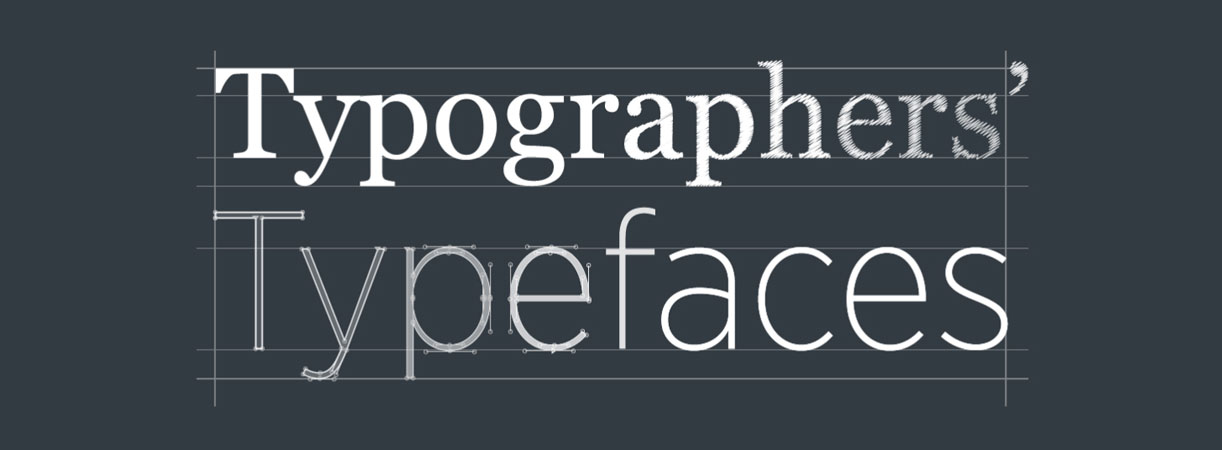
The 25 most admired typefaces of all time by those in the know
Selecting the right typeface makes all the difference to effective design and communication. But with over 100,000 font families to pick from it can be a daunting task. There are some excellent guides on how to choose a typeface and helpful methods for pairing typefaces but in order to apply these principles it’s important to be familiar with a broad range of quality typefaces. Wouldn’t it be great to start with a short list of typefaces, hand-picked by designers in the type industry?
In each issue of 8 Faces magazine we asked eight leading designers from the fields of typography, lettering and type design itself: If you could use just eight typefaces, which would you choose? Over four years and across eight issues we interviewed 64 world-renowned designers, including; Erik Spiekermann, Jessica Hische, Michael Bierut, Nina Stössinger, Mark Simonson; Seb Lester, plus owners of respected type foundries such as, Font Smith, Type Together and Process Type. We’ve counted the number of times each typeface was selected and found consensus with the top 25.
The top 10 designers’ favourite fonts will be quite familiar to many but hopefully the full list will provide a useful stepping stone to exploring many more.
1. Georgia
Matthew Carter, 1993. Chosen 11 times. Originally designed for clarity on low resolution screens, for Microsoft, it is the counterpart to Verdana, which also appears in this list. Georgia has a large x-height and ascenders that rise above the cap height. It’s a sturdy yet friendly typeface, with a wonderful flowing italic, that features on millions of websites.
“A gorgeous technical achievement.” Jason Santa Maria
2. Gotham
Tobias Frere-Jones, 2000. Chosen 8 times. Famously used for Barack Obama’s 2008 presidential campaign.
“Each character just feels ‘normal’ and ‘right’”. H & FJ
3. FF Scala
Martin Majoor, 1990. Chosen 6 times. FontShop International’s ‘first serious text face’.
“Scala and Scala San are just about perfect.” John Boardley
4. Futura
Paul Renner, 1927. Chosen 5 times. This immortal ‘modern’ typeface with its uncompromising shapes has become the benchmark geometric sans for almost 80 years.
“Paul Renner’s Future characterised his time and influenced many other designers. It was a real modern typeface, not based on existing serif typefaces”. Georg Salden
5. Gill Sans
Eric Gill, 1926. Chosen 5 times. A quintessential British design produced under the direction of Stanley Morison at Monotype. It remains one of the most distinctive blends of humanist and geometric shapes.
6. Garamond
(Claude Garamond, c. 1480–1561), Several derivatives of the Parisian punch cutter’s design have been chosen, including; ITC Garamond (Tony Stan), Adobe Garamond & Garamond Premier (Robert Slimbach). Chosen 5 times.
“Garamond was quite the master who appreciated restraint as much as elegance. Of the various roman and italic sizes that he cut, I feel his Vraye Parangonne font (about 18 pt.) best captures the essence of his vision. The subtlety of line and detail are simply remarkable.” Robert Slimbach
7. Caslon (Adobe Caslon)
(William Caslon I, 1722) Carol Twombly, 1990. Chosen 5 times. Gave rise to a printer’s saying ‘When in doubt, use Caslon’. Also a favourite of Benjamin Franklin.
8. Akzidenz Grotesk
H. Berthold, Berthold Type Foundry, 1898. Chosen 4 times. The first widely used sans serif typeface.
“The original grotesque and still the best.” Vincent Connare
9. Alternate Gothic
Morris Fuller Benton, 1903. Chosen 4 times. Designed for the American Typefounders Company (ATF). All three weights are bold and narrow. Currently used on YouTube’s homepage logo.
“Very well designed and drawn. It’s a standard that I strive for in my own work” Mark Simonson
10. Baskerville
John Baskerville, 1757. Chosen 4 times. Baskerville designed his own type to improve his printed works and better the dominant fonts of William Caslon. His typefaces were both admired (notably by Giambattista Bodoni and Benjamin Franklin) and criticised by his competitors.
Baskerville made variations of his typeface for use at different sizes (now referred to as ‘optical sizes’). Some modern interpretations of Baskerville have been reproduced following the designs of a specific size, resulting in several distinct versions.
11. Helvetica
Max Miedinger with Eduard Hoffmann, 1957. Chosen 4 times. Helvetica needs no introduction as the planet’s most famous typeface—it even inspired a very good film.
“You can say, ‘I love you,’ in Helvetica. And you can say it with Helvetica Extra Light if you want to be really fancy. Or you can say it with the Extra Bold if it’s really intensive and passionate, you know, and it might work.” Massimo Vingelli
12. Metro
William Addison Dwiggins, 1930. Chosen 4 times. Designed out of a dissatisfaction with the san serifs of the time like Futura.
13. ITC Franklin Gothic
Morris Fuller Benton, 1902. Chosen 4 times. Created for the American Type Founders Company and named after Benjamin Franklin.
Correction, 27th November 2014. Three versions of Baskerville were chosen: Baskerville (twice), Baskerville 1757 and Berthold Baskerville. These have been combined and Baskerville added at number 10.